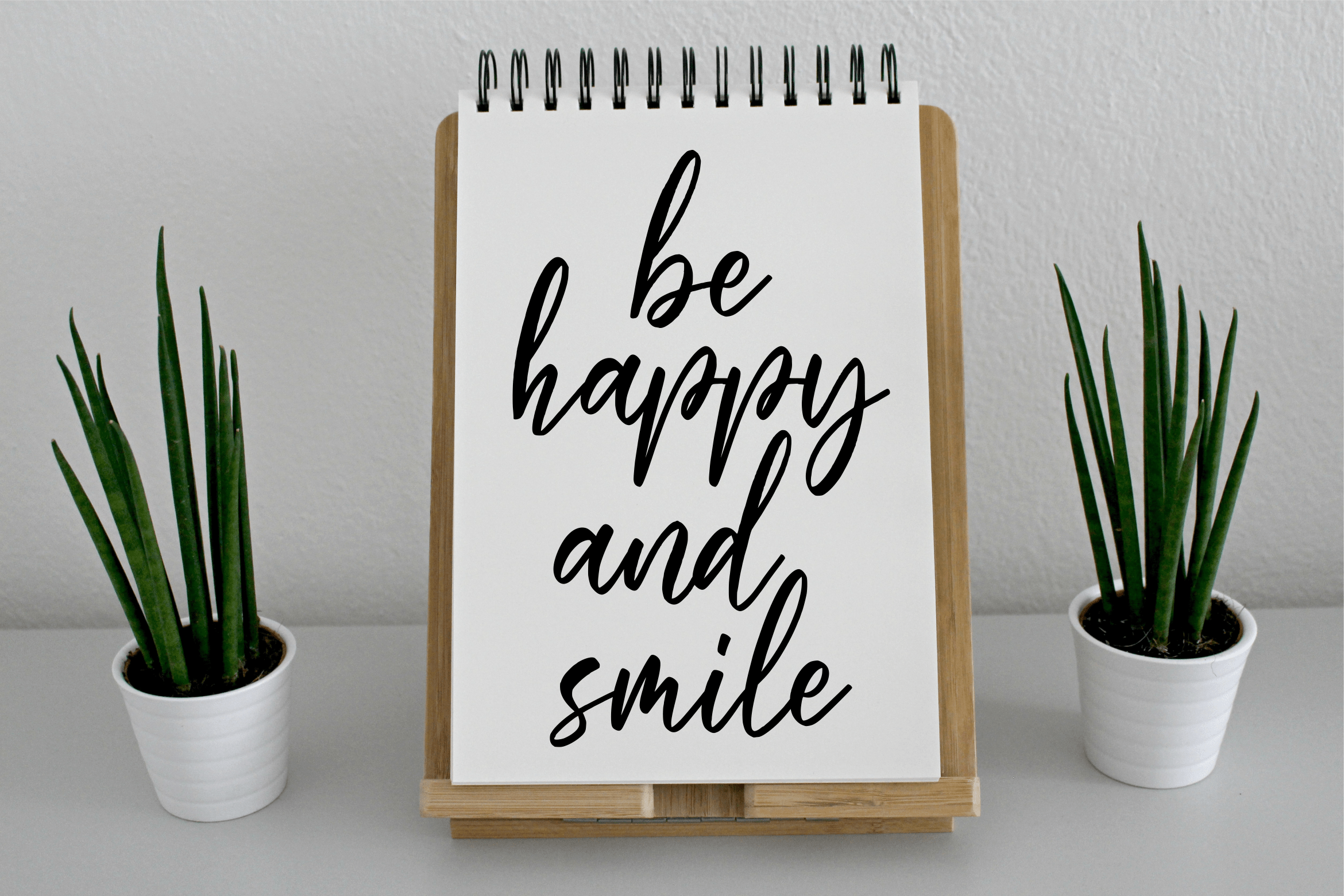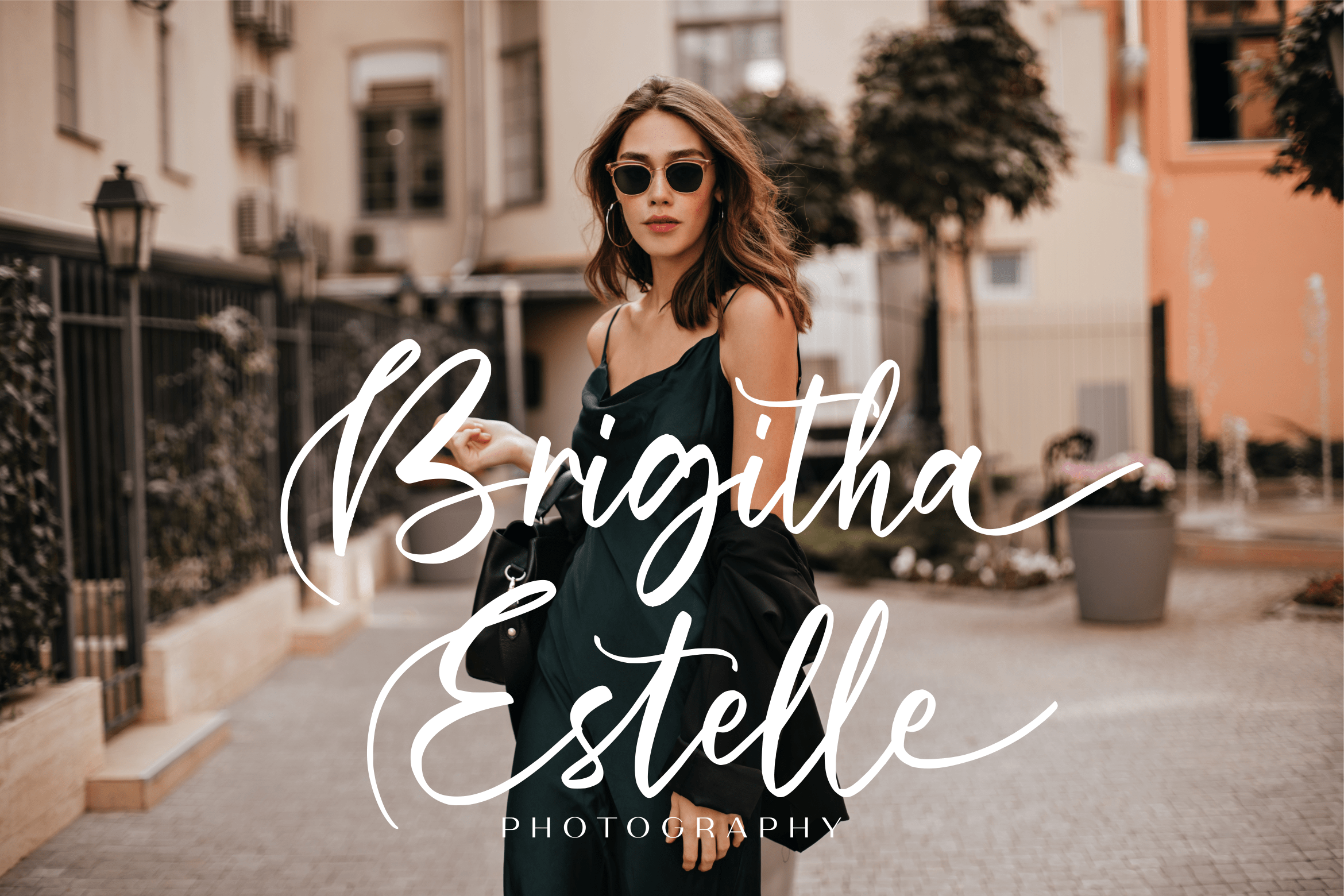
Jimscript Script Font
This is perfect for product packaging, branding project, magazines, social media, wedding, or just used to express words above the background. Fall in love with its incredibly versatile style and use it to create spectacular designs!